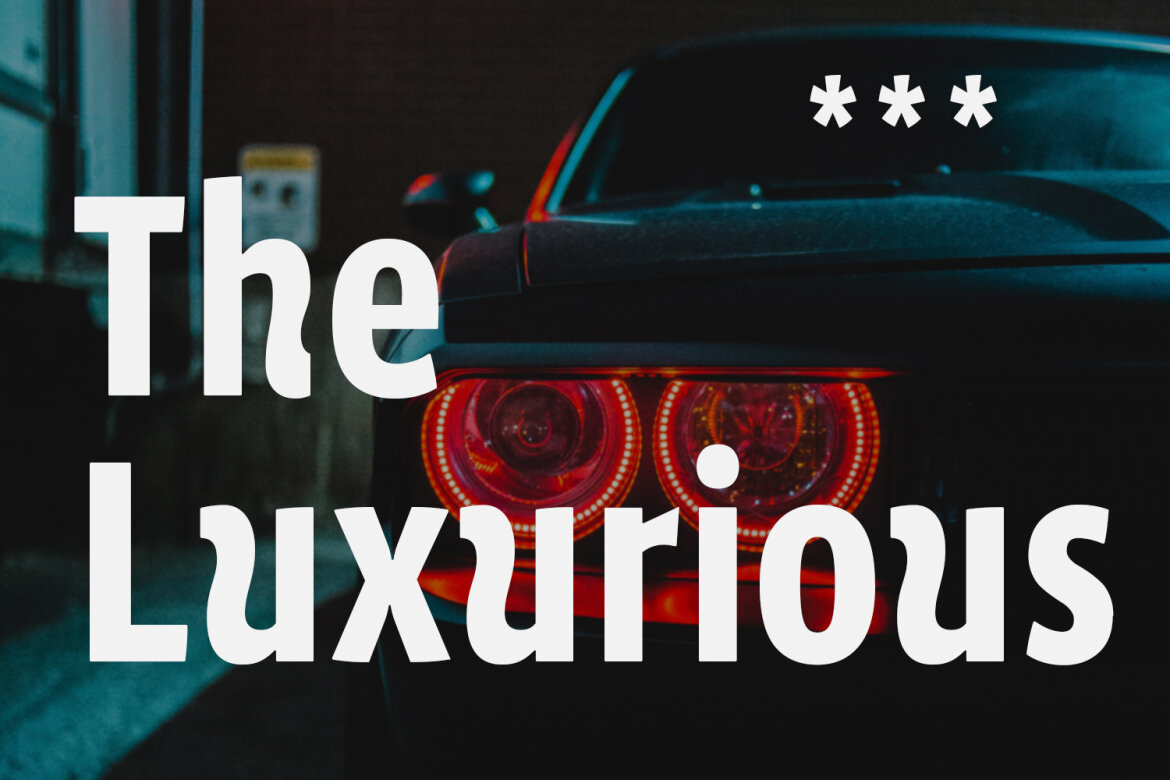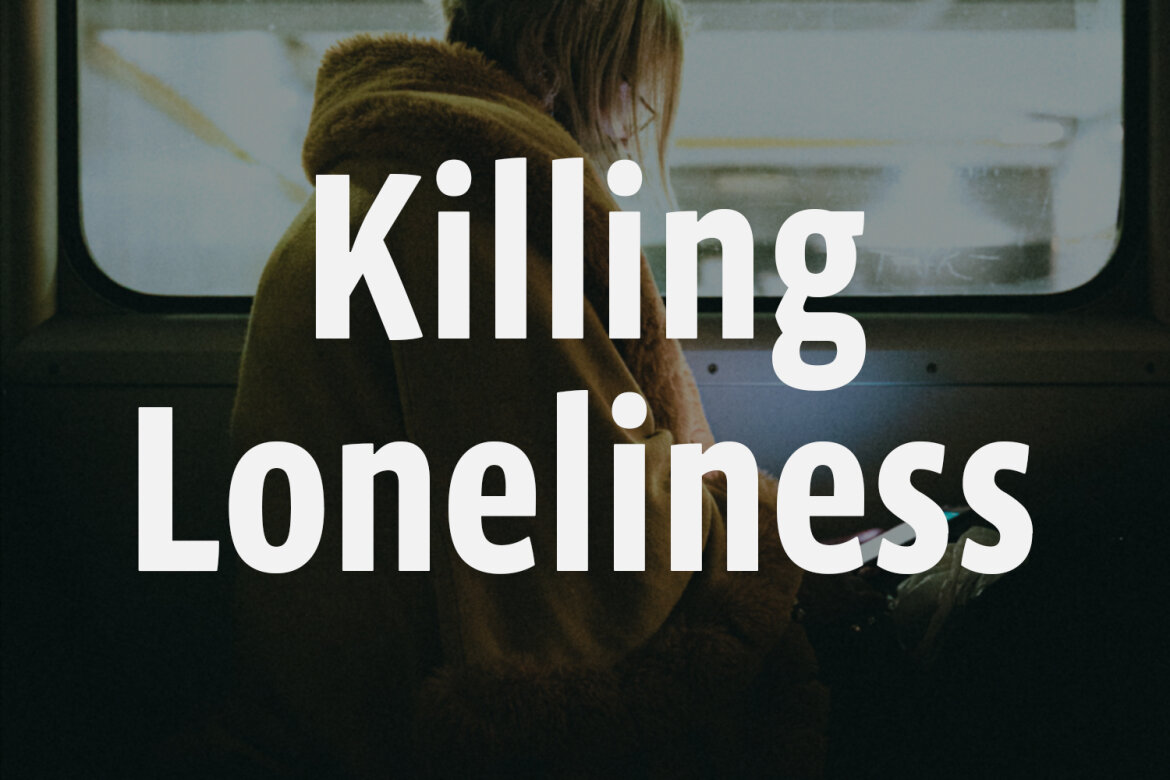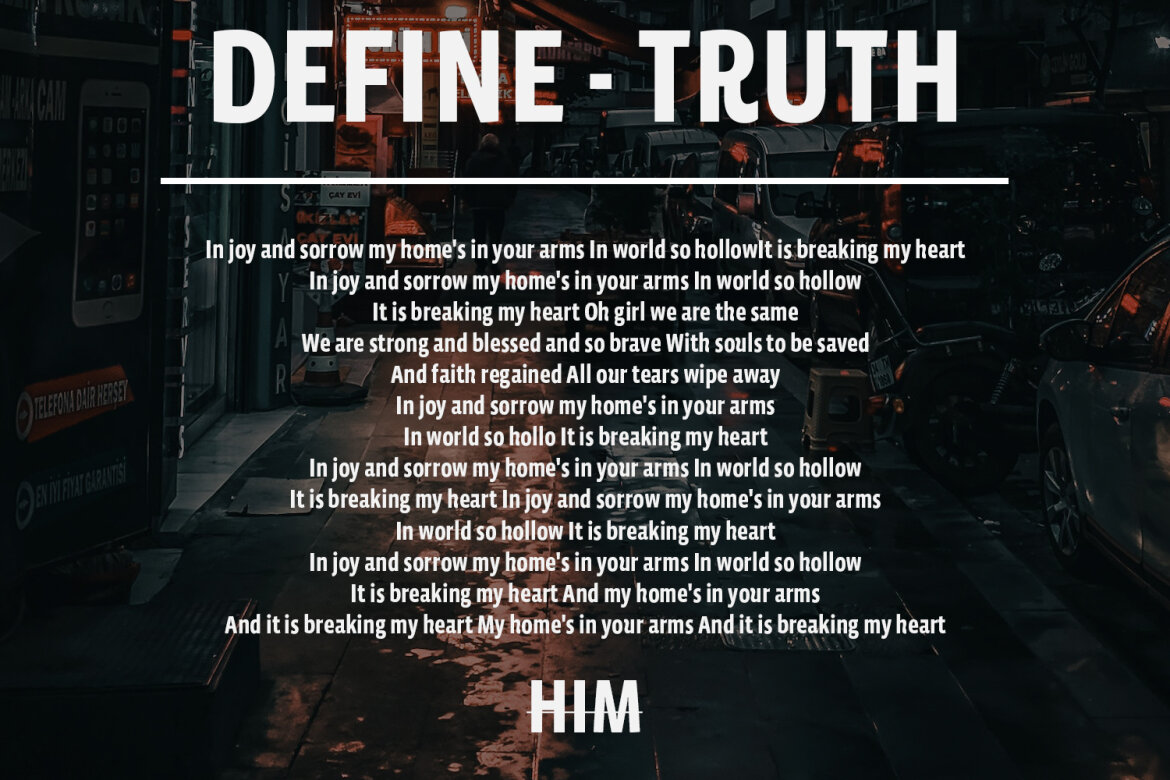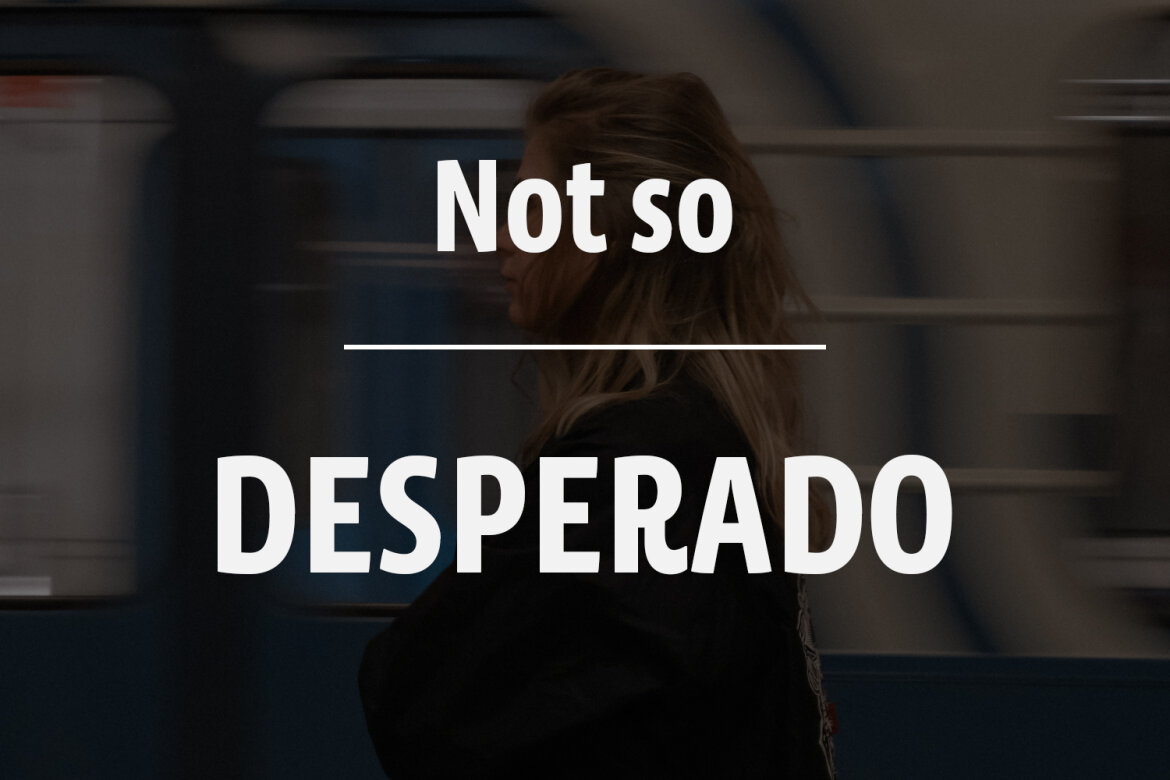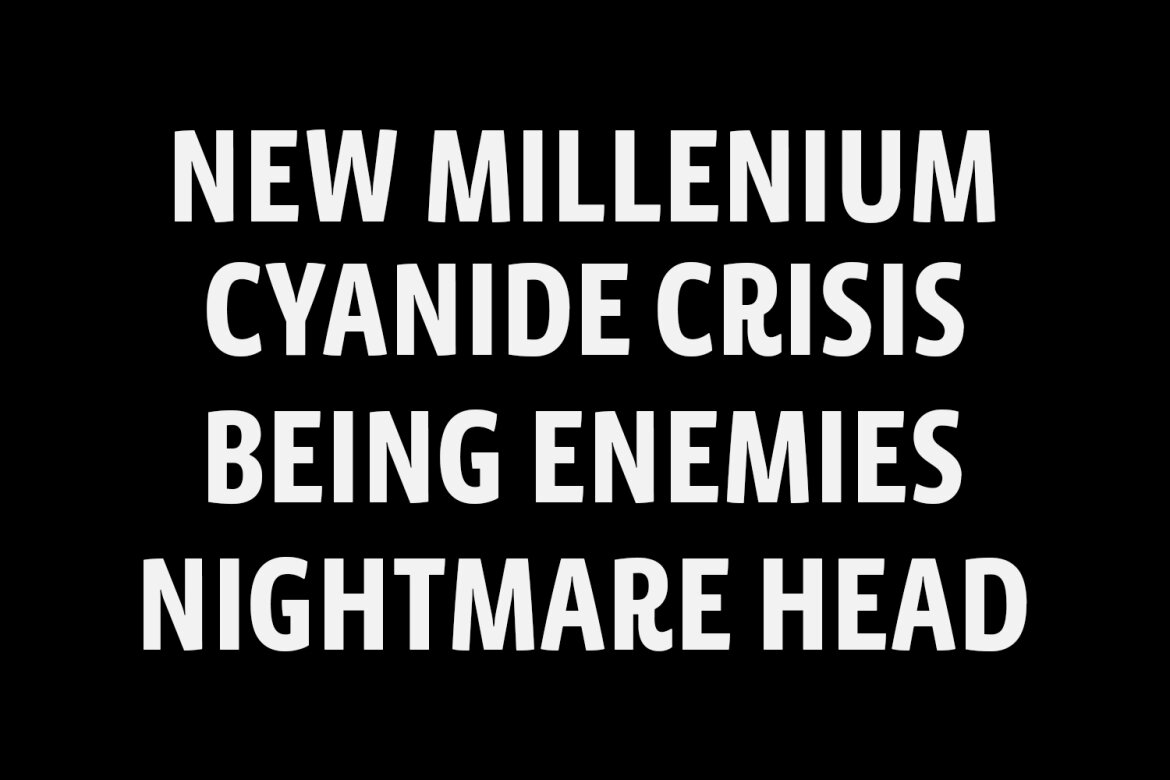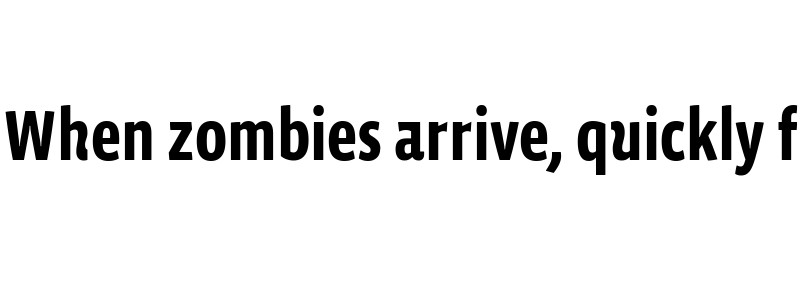
Roater Display Sans FREE Font
Roater is a Condensed Decorative Display Sans font. Regular stroke, fun character with a bit of ligatures and alternates. To give you an extra creative work. Roater font support multilingual more than 100+ language. This font is good for logo design, Social media, Movie Titles, Books Titles, a short text even a long text letter and good for your secondary text font with script or serif. Make a stunning work with Roater font.